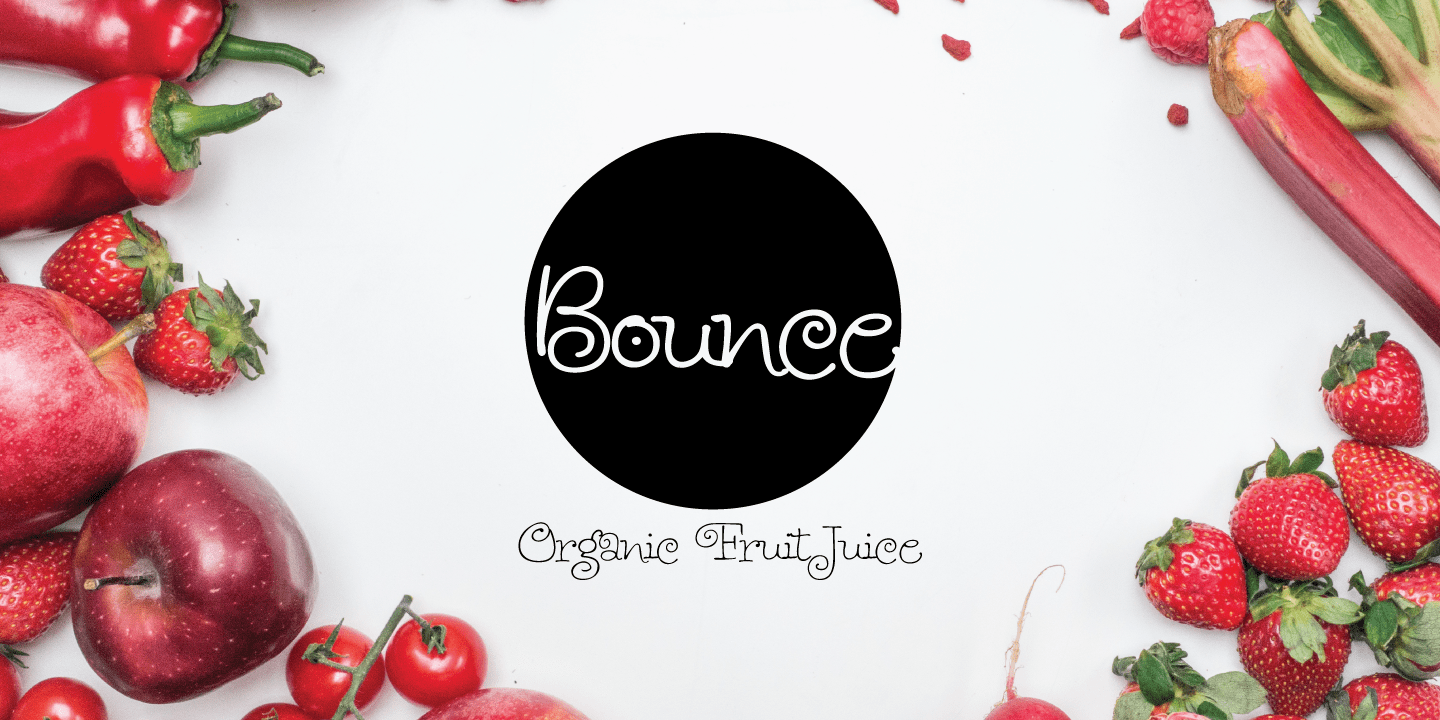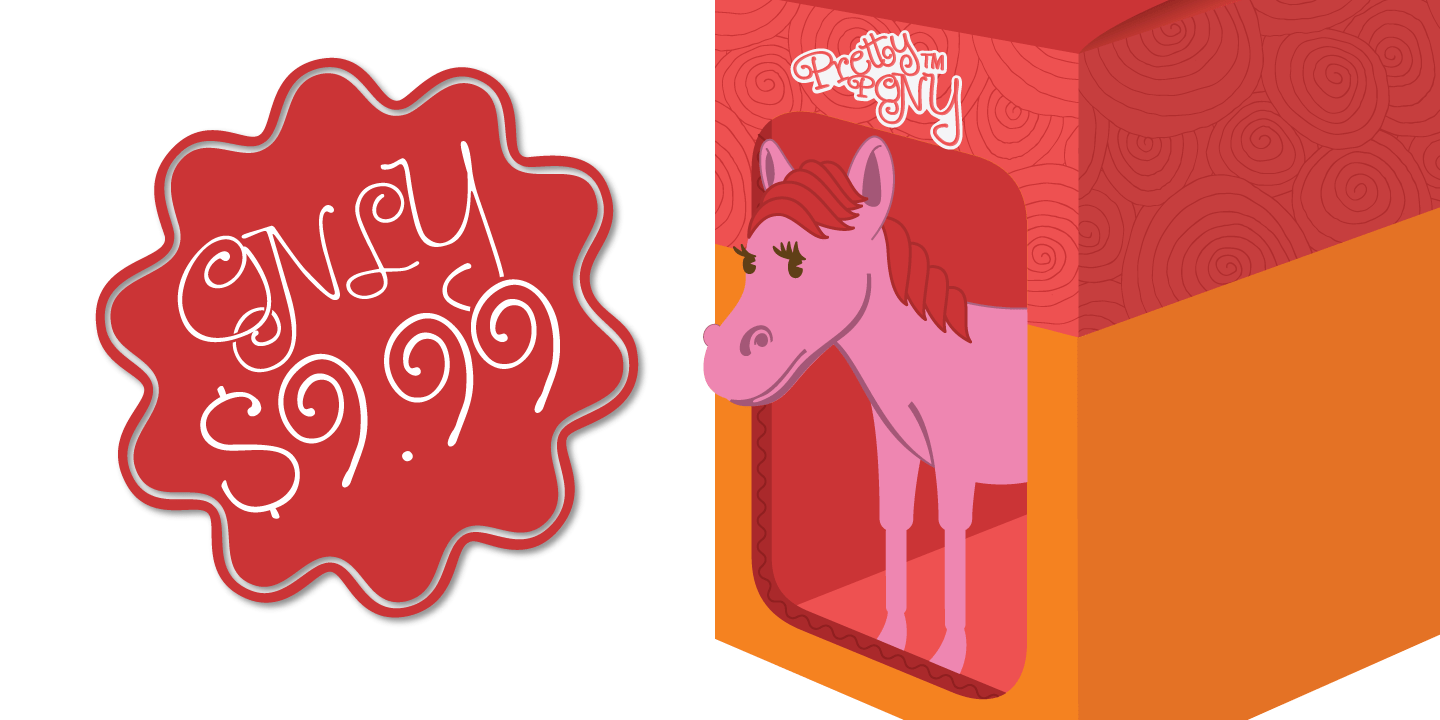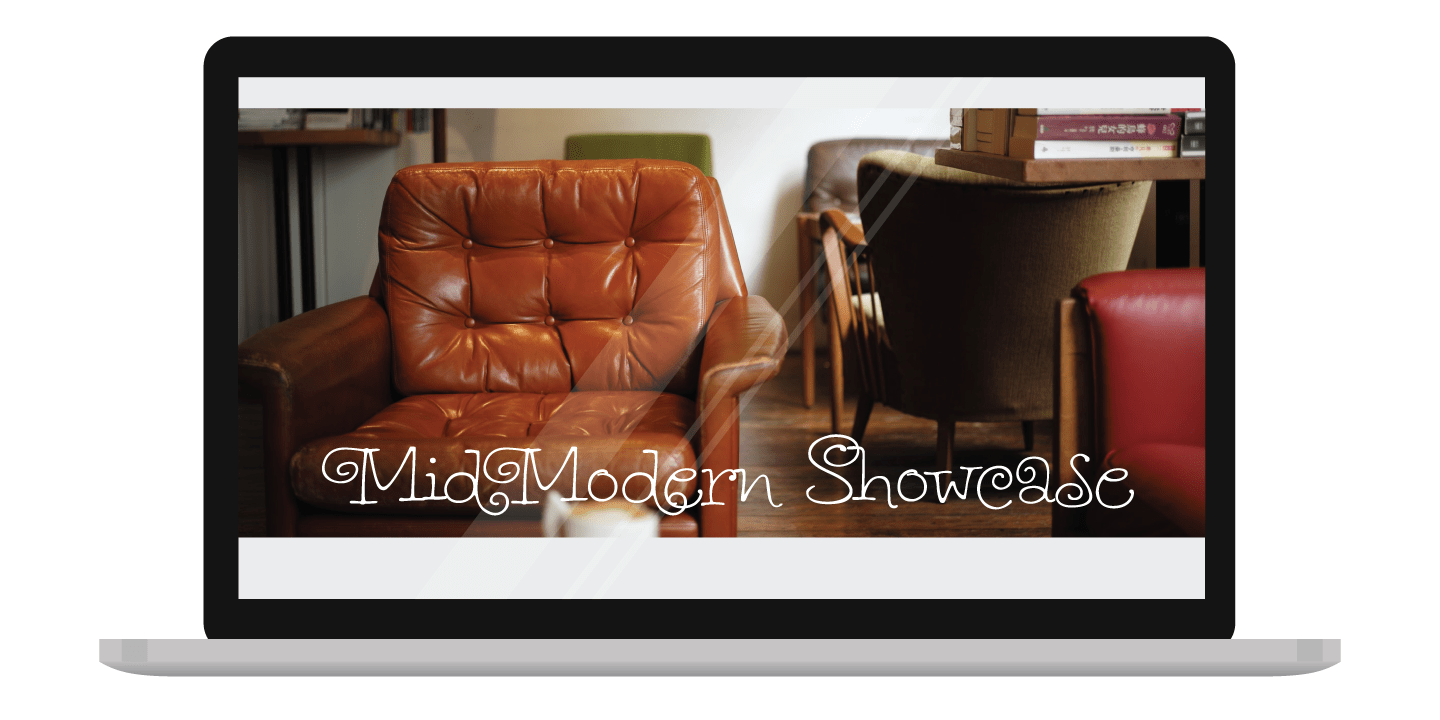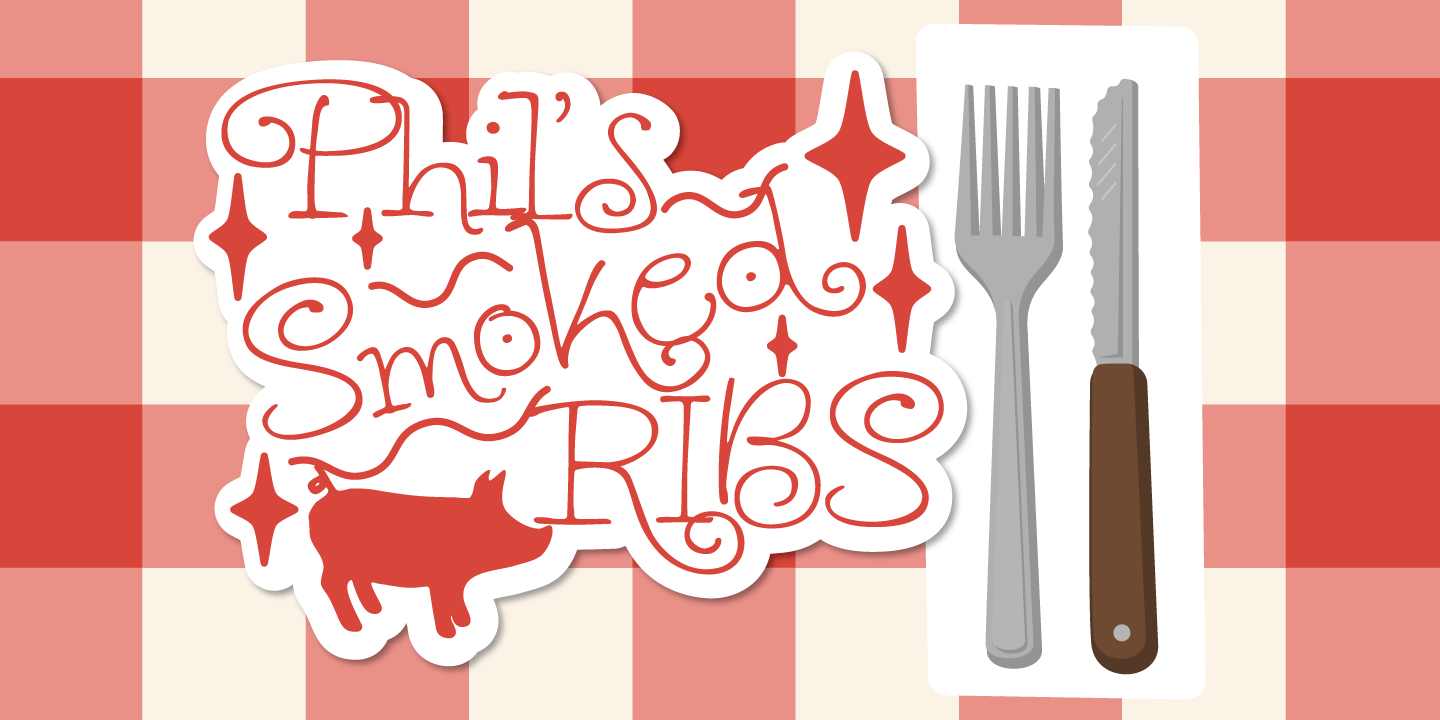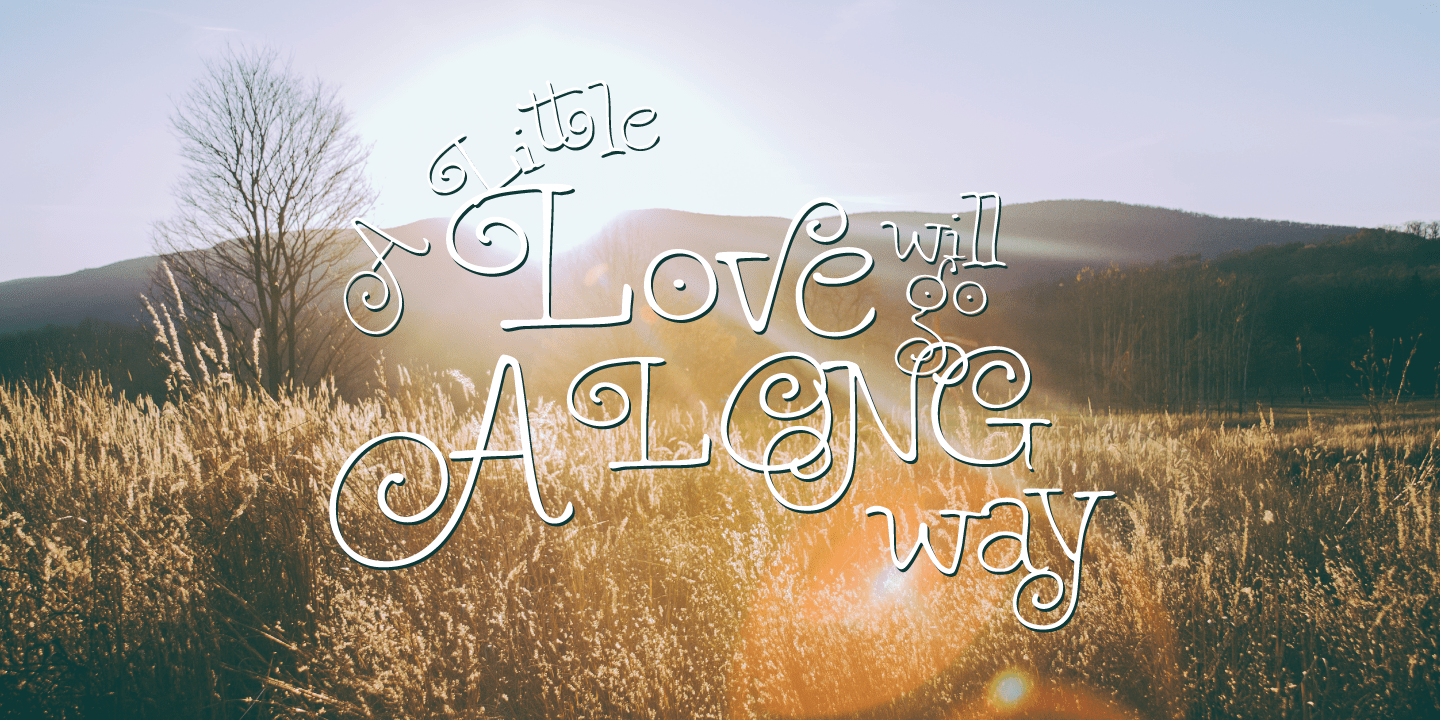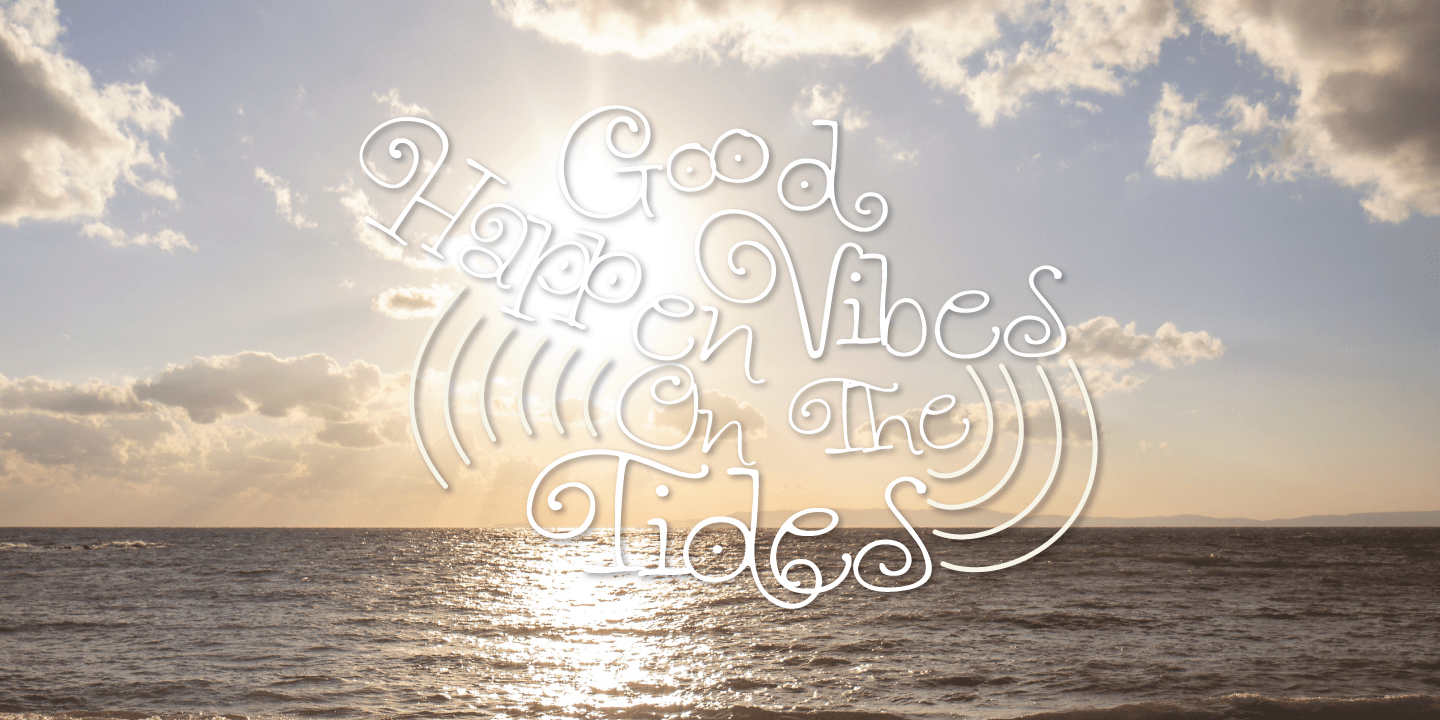
Swirly curly goodness awaits with Piquant, a fresh new hand-lettered font from Rocket Type. Bunches of alternates, ligatures and a full Vietnamese character set. Oodles of quirkiness ready to complement any lighthearted graphic project. Contains 6 weights…